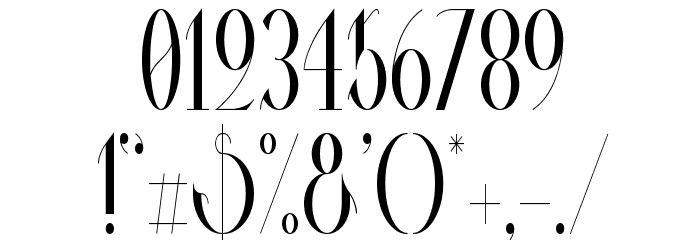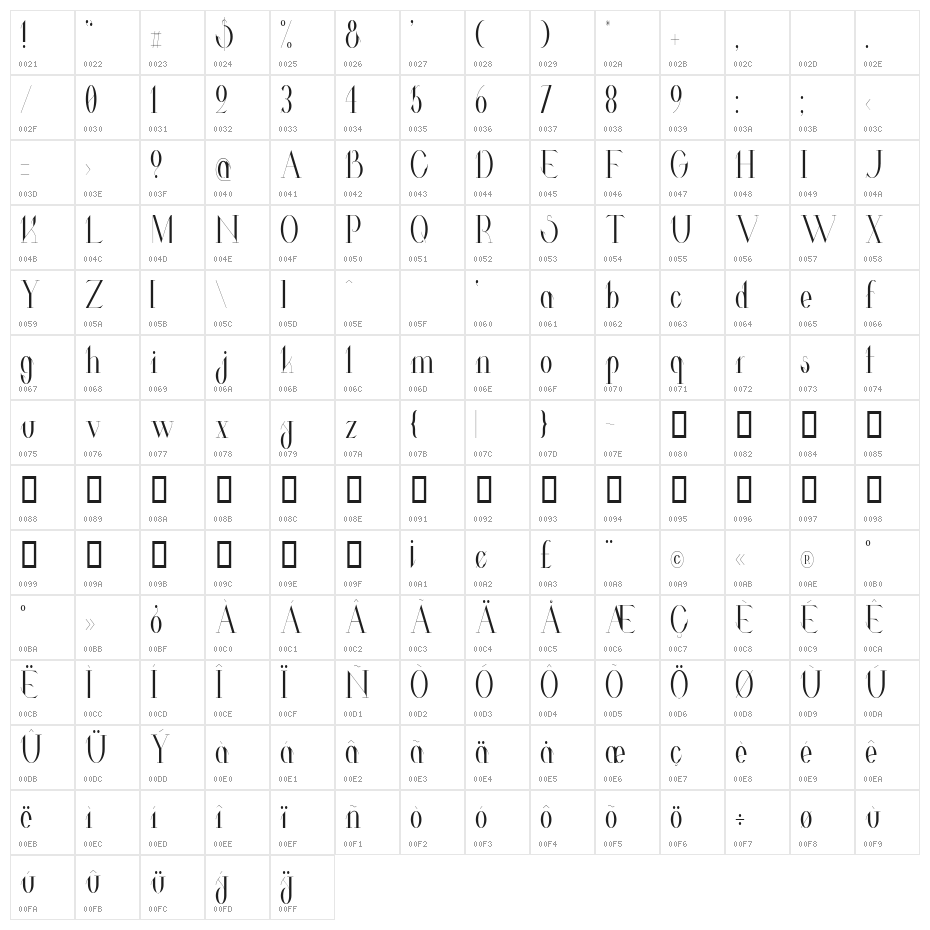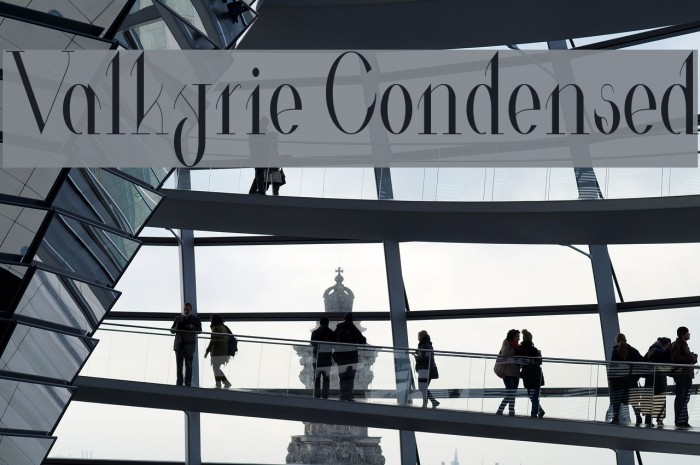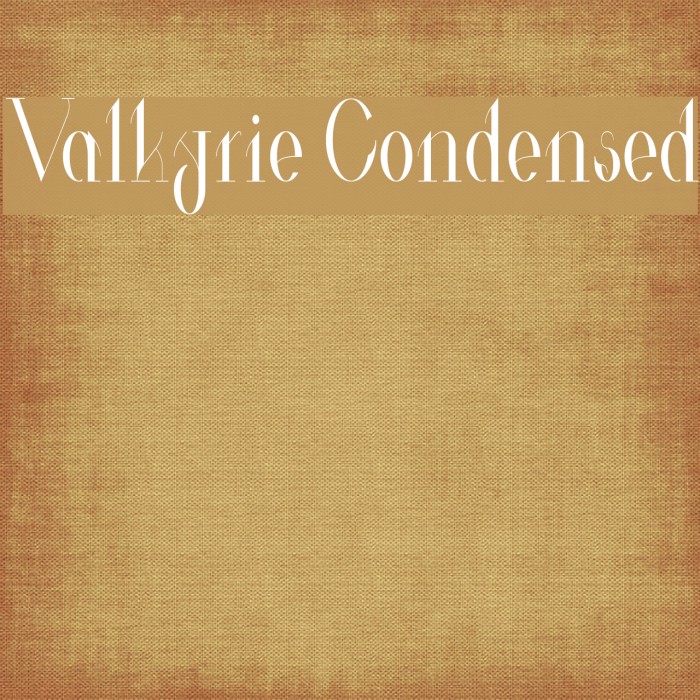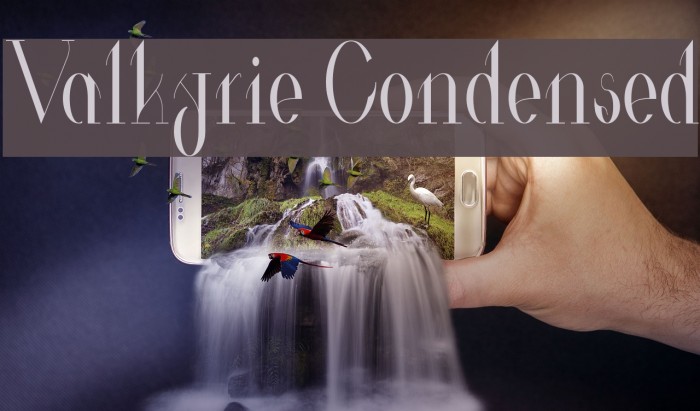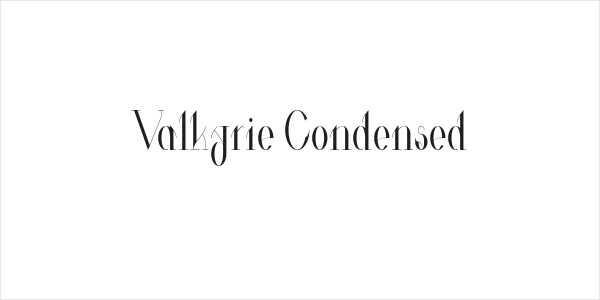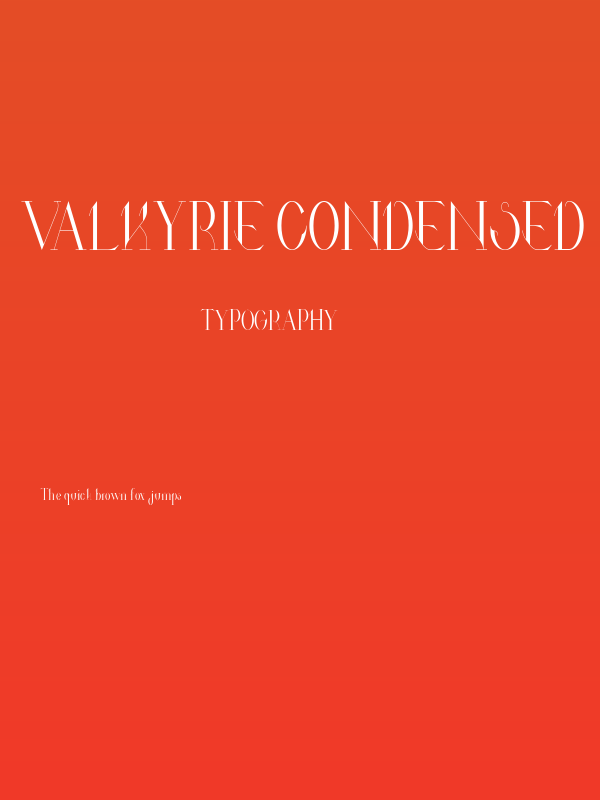
Valkyrie Condensed Font
Valkyrie Condensed Description
This font features a striking and elegant design with a modern flair. The characters are condensed, giving them a tall and narrow appearance, which enhances their sophisticated look. The strokes are a mix of thick and thin, creating a high contrast that adds to the font's dramatic effect. The serifs are sharp and pronounced, contributing to the overall refined aesthetic. This font is ideal for making a bold statement while maintaining a sense of elegance and style.
Proposed ProjectsPerfect for luxury branding, fashion magazines, high-end product packaging, and elegant invitations.